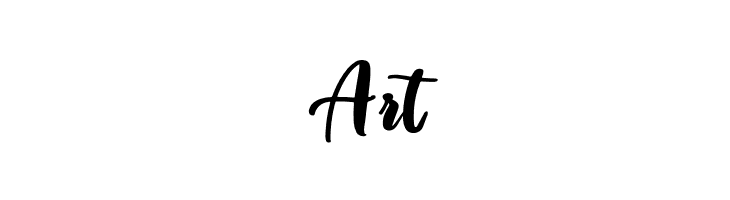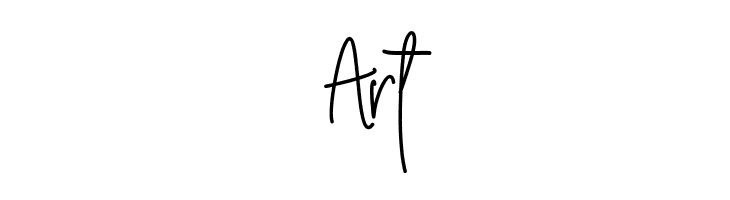
A dynamic and elegant script font with fluid, flowing letterforms.
A bold, brush-textured font with a hand-painted look.
A bold, hand-drawn font with a rustic and organic feel.
A bold, hand-drawn font with a rugged, organic style.
An elegant, flowing script font with a natural handwriting style.
A modern, elegant script font with flowing, cursive characters.
An elegant, flowing script font with a handwritten style.
A bold, expressive handwritten font with dynamic strokes.
A lively, flowing handwritten font with playful loops and elegant strokes.
A flowing, cursive script font with elegant, connected strokes.